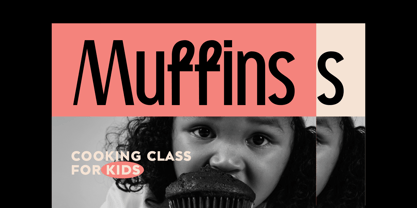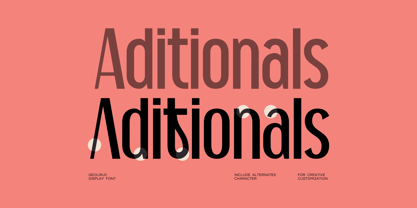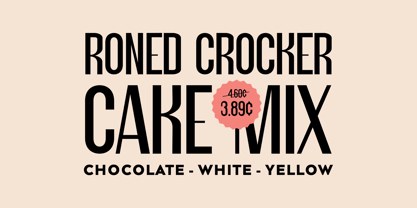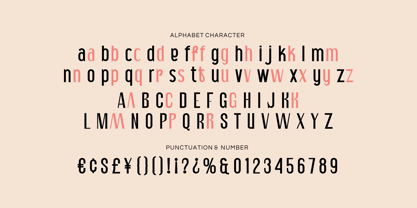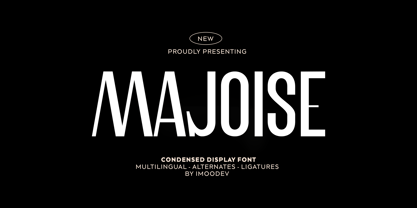
Majoise
by Imoodev
The Majoise Font Family was designed by Aulia Savira Putri and published by Imoodev. Majoise contains 1 styles. More about this family
Meet Majoise, a bold condensed display typeface designed to command attention. Inspired by the sleek modernist geometry of the 2000s, Majoise captures that iconic vibe with a fresh, contemporary twist and an array of playful alternates.
Its clean and stylish aesthetic is perfect for projects that need to make a statement. Majoise excels in branding, packaging, editorial layouts, posters, and advertising. It effortlessly balances chic minimalism with strong personality, making it a versatile choice for fashion campaigns, food packaging, captivating website headlines, and cutting edge creative projects.
Designers: Aulia Savira Putri
Foundry: Imoodev